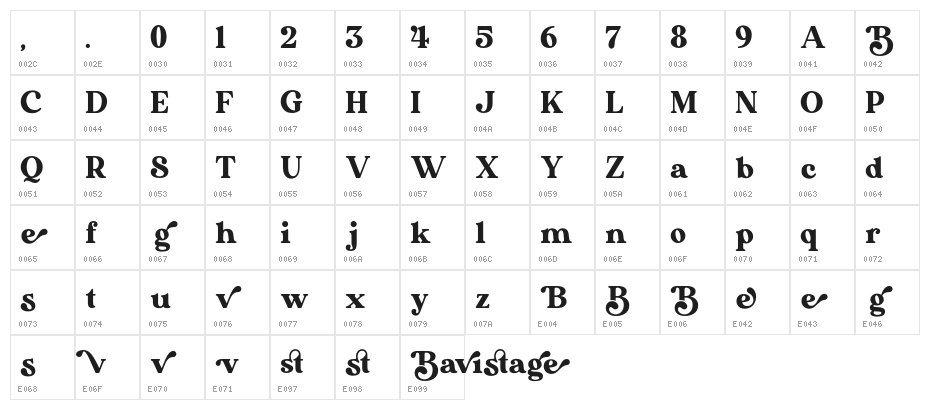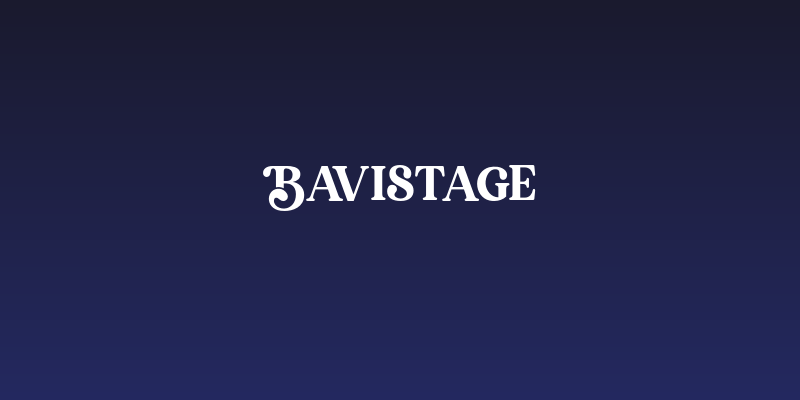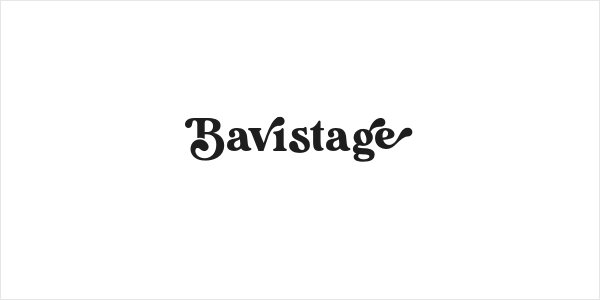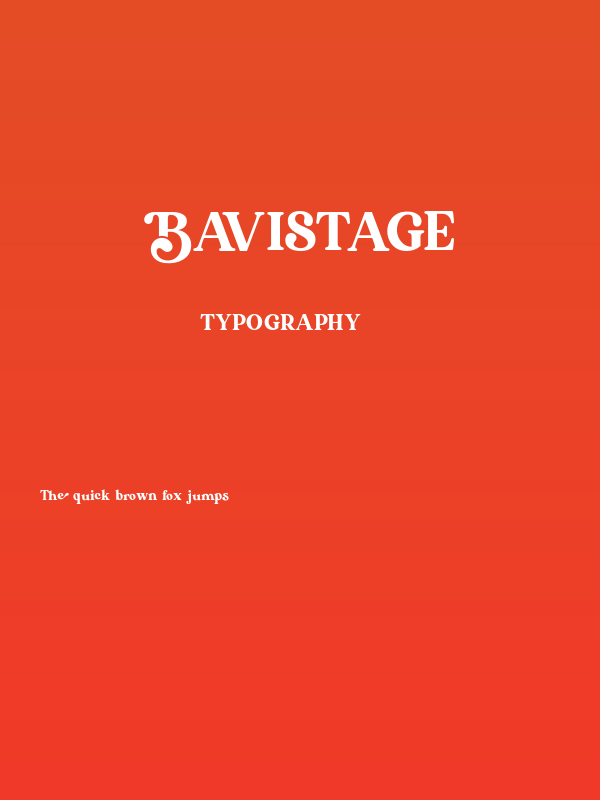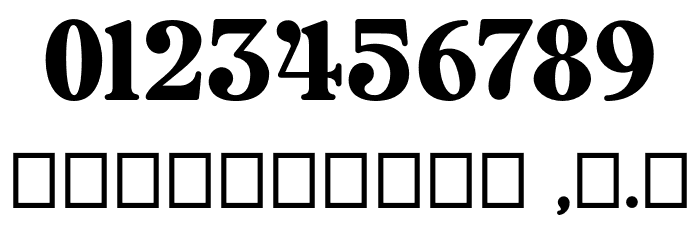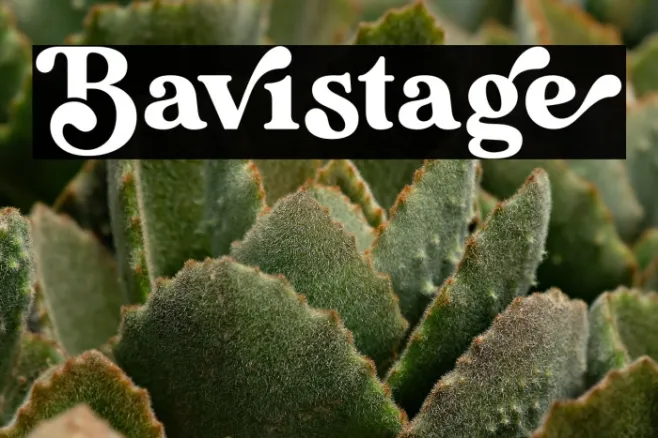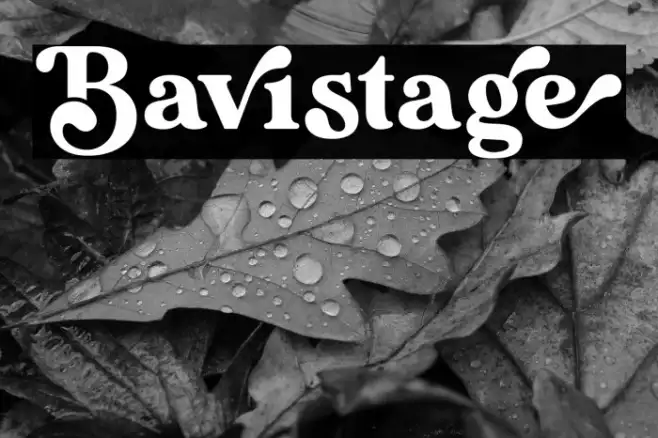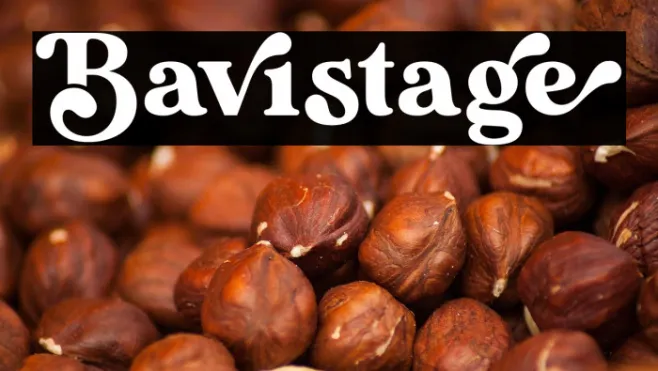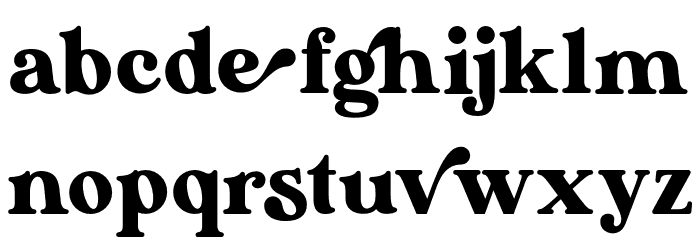
Bavistage Font
Bavistage Description
This font features a bold and decorative style with a strong presence. The uppercase letters are characterized by thick, prominent strokes and unique flourishes, especially noticeable in letters like 'A', 'B', and 'R'. The lowercase letters maintain a consistent boldness, with some characters like 'g' and 'y' having distinctive tails. The numerals are equally bold, with a playful yet robust appearance. The overall design is eye-catching, making it suitable for projects that require a strong visual impact.
| Proposed Projects | Ideal for branding, poster design, headlines, and any project requiring a bold statement. |